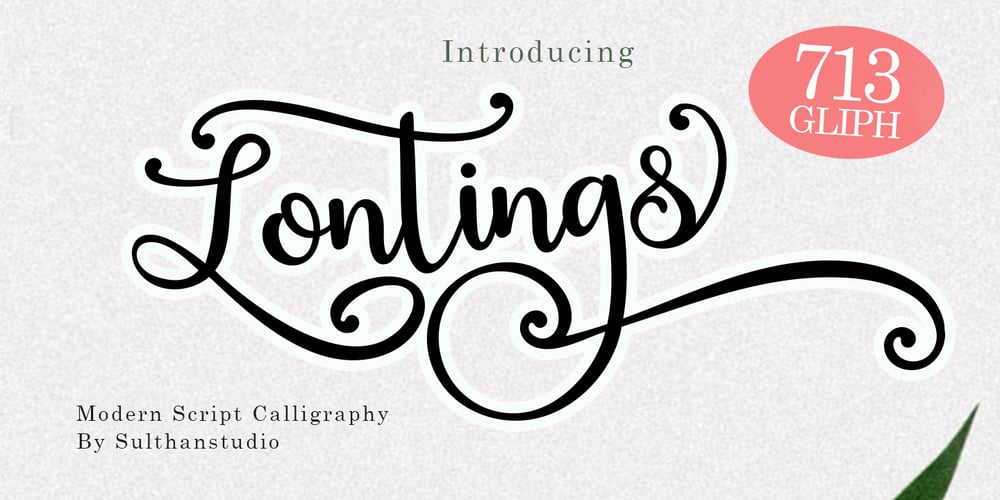
Lonting Script
Lonting Script font
Lonting Script Font Family was designed by Nasrullah and published by Sulthan Studio. Lonting Script contains 1 styles and family package options. Lontings Script – font we present to you with a classy and charming style. Bold fonts have many alternative characters of upper and lower case letters that you can choose according to your needs. Such as the letter (r) that is too close you can replace it with another alternative letter a.12 (a,c,e,i,o) as well as A1,A,2 or h1 – h26 or g1 – g26 ,also a heart that can be connected and many other alternatives and ligatures that you can customize to your needs. It’s perfect for any type of work you’re working various purposes such as logos, wedding invitations,SVG,cutting,sticker,headings, t-shirts, letterheads, signage, labels, news, posters, badges etc.